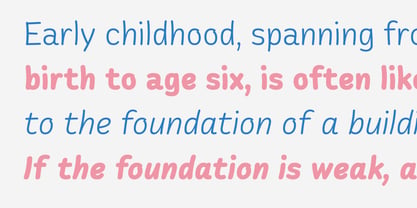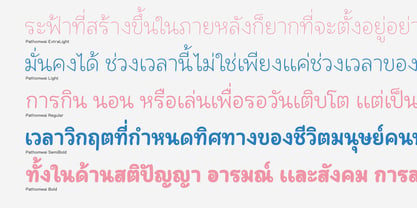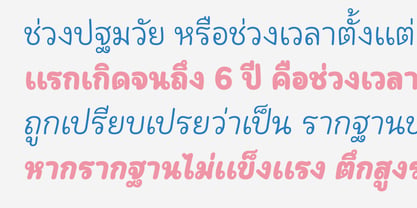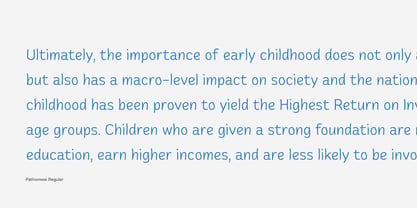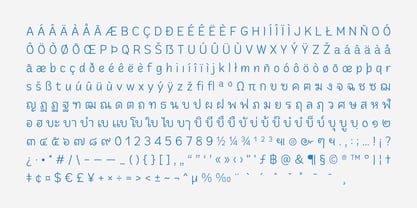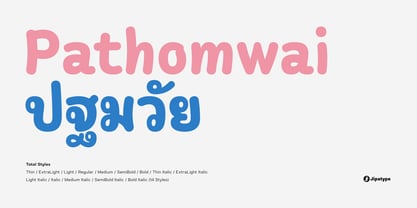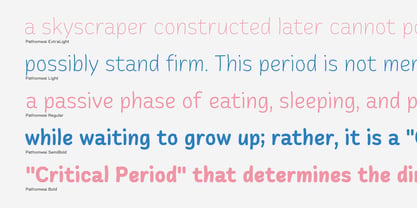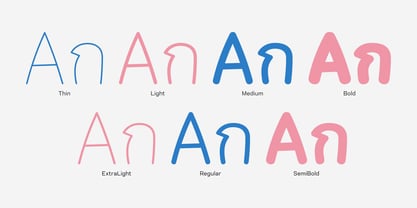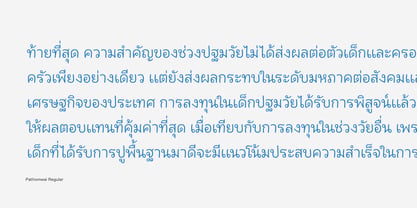
Pathomwai
by Jipatype
The Pathomwai Font Family was designed by Anupap Jaichumnan and published by Jipatype. Pathomwai contains 14 styles and family package options. More about this family
Pathomwai is a typeface characterized by its warmth, softness, and undeniably friendly demeanor. Designed with rounded terminals across both its looped Thai and Latin character sets, it eliminates harsh edges to mimic the aesthetic of neat handwriting created with a round-tip marker. This rounded structure ensures high legibility and a clean visual appeal while conveying a sense of innocence, playfulness, and sincerity perfectly balancing typographic order with organic freedom. With its kind and accessible personality, Pathomwai is an ideal choice for design projects targeting families and children, such as storybooks, educational materials, packaging for mother and child products, toys, and ed-tech applications. Furthermore, it is versatile enough for general branding that requires a casual, approachable, and trustworthy image, or for social media graphics that aim for a cute and heartwarming atmosphere.
Designers: Anupap Jaichumnan
Foundry: Jipatype
Jipatype is a one-man type foundry based in Bangkok, Thailand, officially established in 2022 but operating since 2019 by Anupap Jaichumnan. The foundry's name comes from the Thai word จิปาถะ, which translates to "miscellaneous", "assorted", or "various". This reflects the variety of design approaches and influences that are present in its typefaces. Jipatype creates fonts that blend traditional Thai design elements with modern typography trends. Each typeface is developed with careful attention to both aesthetic details and practical usability, making them suitable for a range of design projects. The work at Jipatype is characterized by a straightforward and functional approach to design, without unnecessary embellishment, aiming to provide clear and effective typographic solutions.